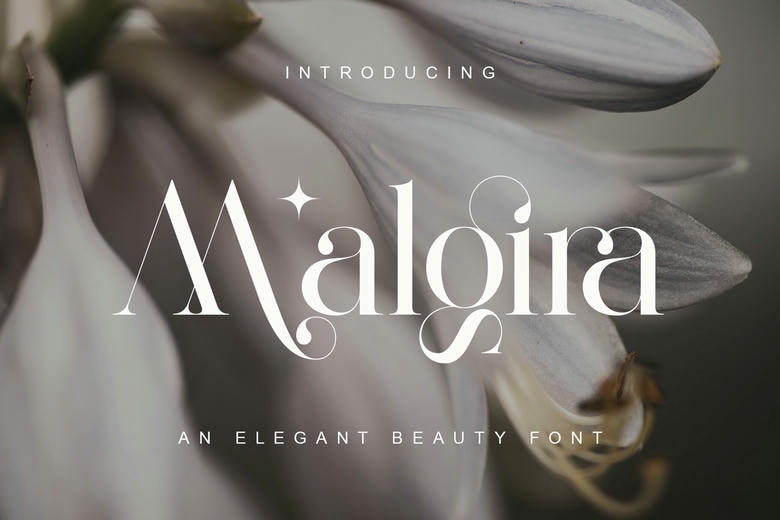
Malgira Font
Malgira is a beautiful ligature serif modern typeface, that makes one feel freshness of the flowers and eternity of style. Growing out of bold yet elegantly refined ligatures, Malgira is a classy and ladylike typeface.
Malgira would be an ideal match to any upscale design, be it florals, fashion, or even high-end branding since it matches the classic style of serif styles with a bold, contemporary twist. Each letter seems purposeful, bright and gentle in its nature and able to make any project better.
Malgira Serif Font